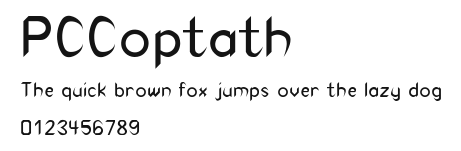
PCCoptath Preview
• Font Name: PCCoptath
• Full Font Name: PCCoptath
About PCCoptath.ttf
PCCoptath.ttf is a modern, elegant sans-serif font designed for ultimate readability and visual harmony. Perfect for branding, headlines, web design, and print materials.